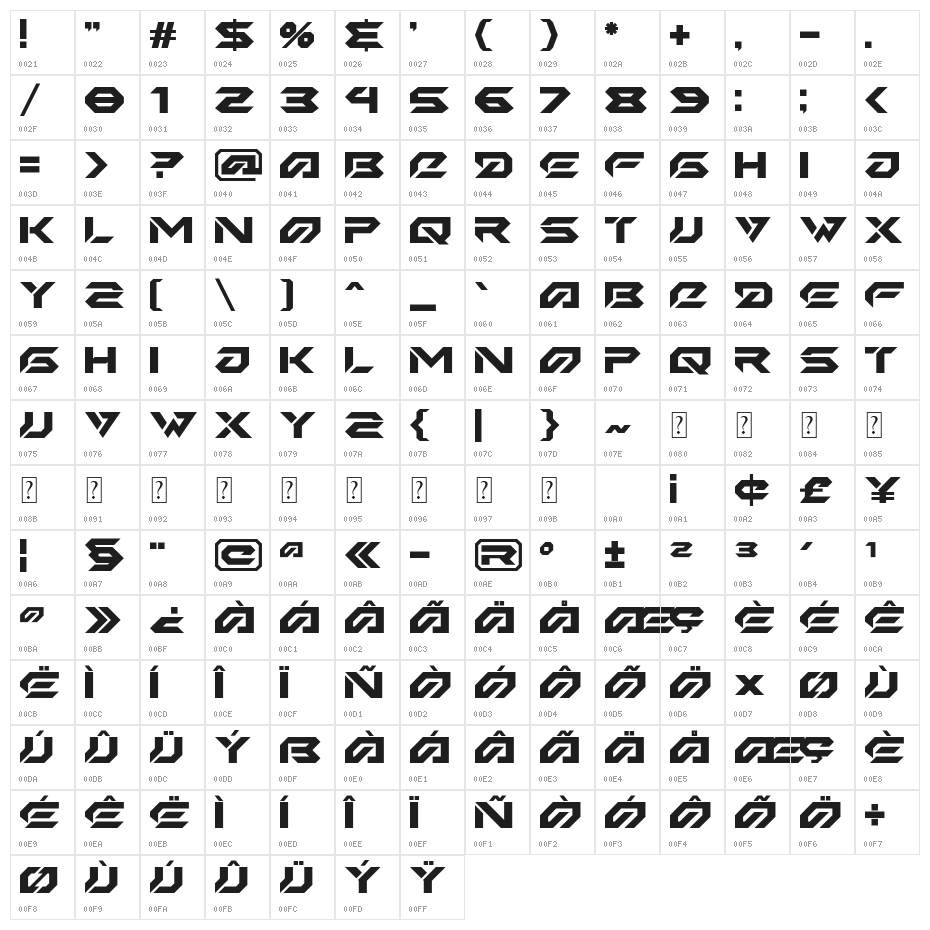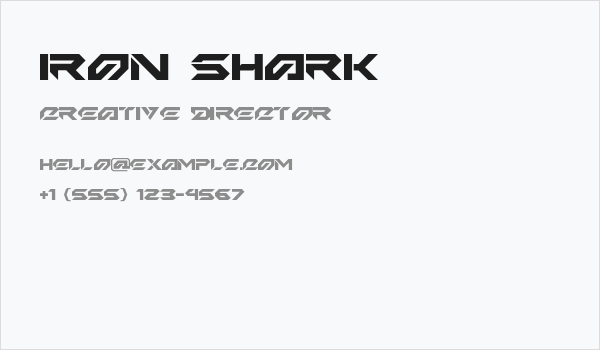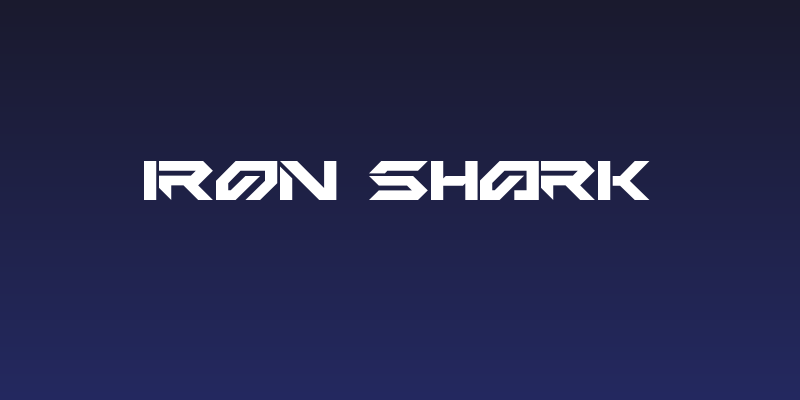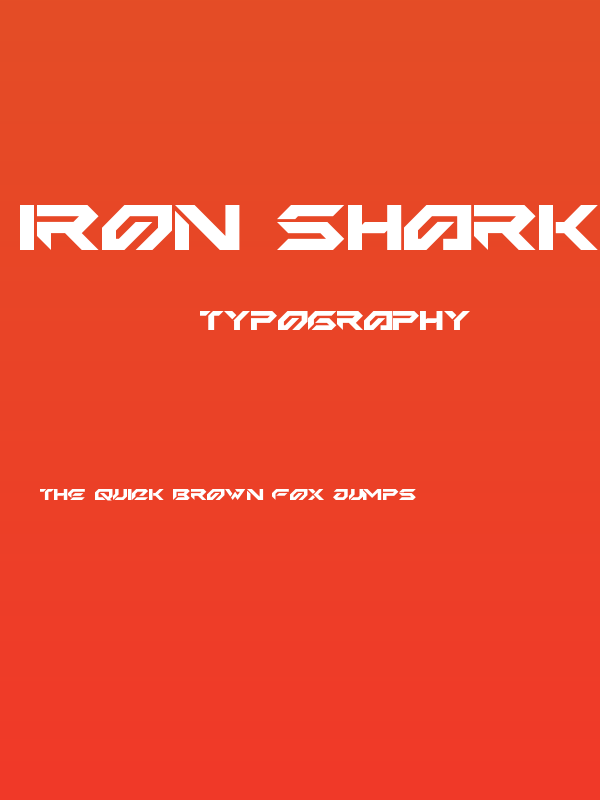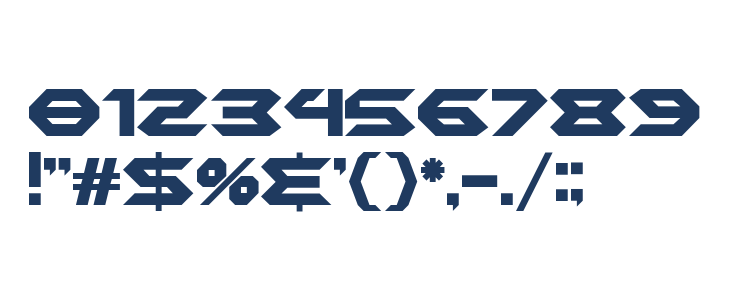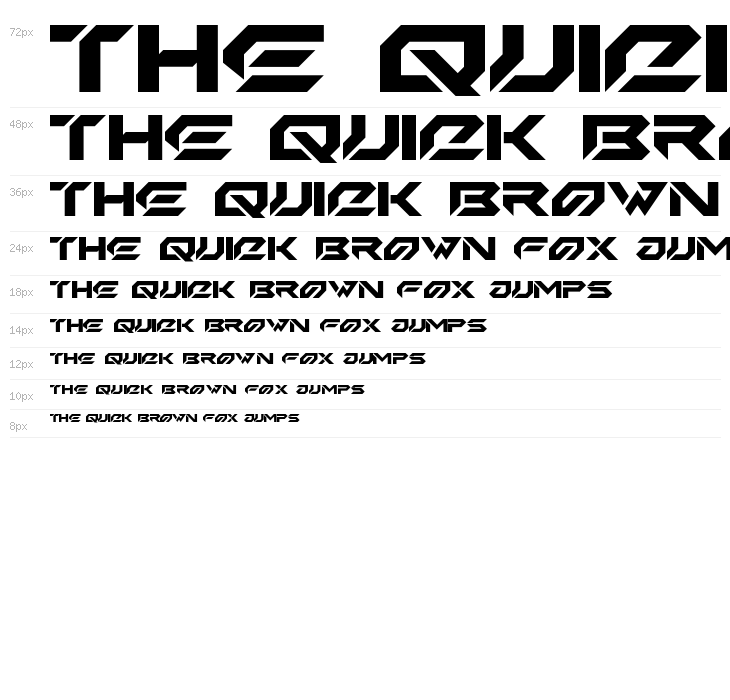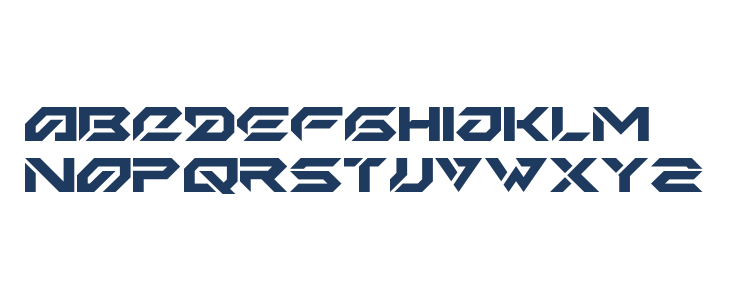
Iron Shark Font
Iron Shark Description
This font features a bold, geometric design with sharp angles and a futuristic aesthetic. The characters are constructed with thick, block-like strokes, giving them a strong and impactful presence. The angular cuts and unique shapes create a sense of movement and dynamism, making it ideal for attention-grabbing headlines or logos. The numbers and special characters maintain the same bold and angular style, ensuring consistency across all elements. The overall design is modern and edgy, perfect for projects that require a bold statement.
| Proposed Projects | Ideal for sci-fi themed designs, gaming logos, tech branding, and modern posters. |